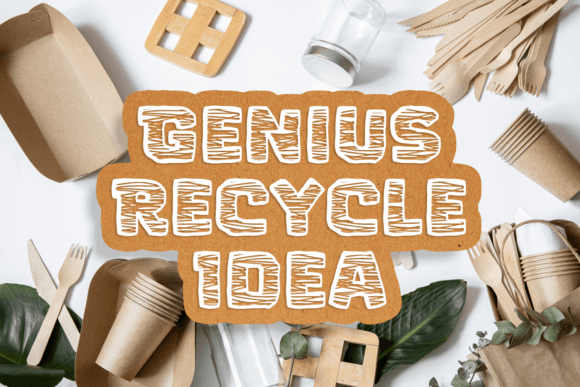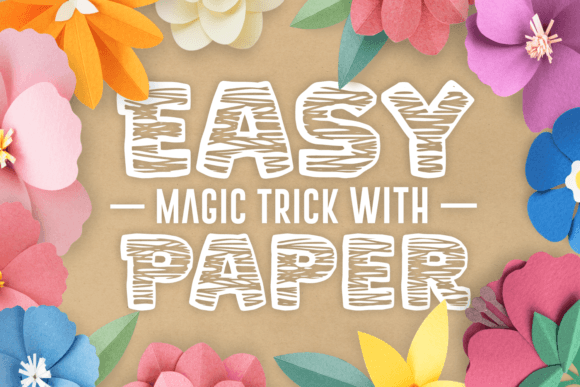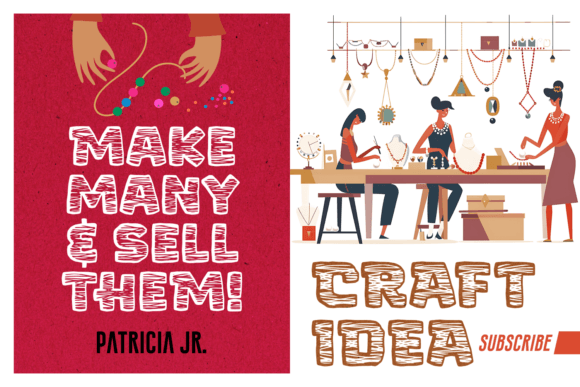
The Craft Trick Font: A Playful Game-Changer for Your Designs
I’ll never forget the time I was working on a project for a quirky client’s craft fair booth. I had all the elements ready – the colors, the layout, the graphics – but something was missing. That’s when I realized I needed a font that would capture the playful, artistic vibe of the client’s handmade products. After scouring through font libraries and testing a dozen options, I stumbled upon the Craft Trick font. It was love at first sight! ✨
The Craft Trick font is a distinctive sketch decorative typeface characterized by its bold and playful nature. Its design features expressive, hand-drawn elements that add a whimsical and artistic touch to any text. The font’s bold strokes ensure that it stands out, making it ideal for eye-catching headlines, creative posters, or playful branding materials.
An Honest Review: The Good and the Quirky
- ✨ Unique and playful design: The Craft Trick font’s irregular, sketch-like quality gives it a sense of spontaneity and charm that’s hard to find in other fonts.
- ✅ Highly legible: Despite its bold and expressive nature, the font remains easy to read, even in smaller sizes.
- 💡 Versatile: The font works well for a wide range of design projects, from posters and flyers to social media graphics and branding materials.
While the Craft Trick font is amazing, it’s not perfect. ⚠️ Some users might find that:
- 🤔 The font can be a bit overpowering for body text or longer paragraphs. It’s best used for headlines or short bursts of text.
- ⚠️ The irregularities in the font can make it tricky to align text perfectly, especially when working with multiple lines or columns.
- Explore the font’s OpenType features, such as glyphs and stylistic alternates, to add more variety to your text.
The Story Behind Craft Trick
The Craft Trick font was designed by a team of creatives who wanted to capture the playful, artistic spirit of handmade crafts. Inspired by the imperfect lines and irregular shapes of hand-drawn lettering, they created a font that’s both bold and charming. The result is a font that’s perfect for designers, crafters, and creative hobbyists who want to add a touch of whimsy to their projects.
Q: Is the Craft Trick font suitable for body text or longer paragraphs?
A: While the Craft Trick font is highly legible, it’s best used for headlines or short bursts of text. For body text or longer paragraphs, you may want to choose a more traditional font.